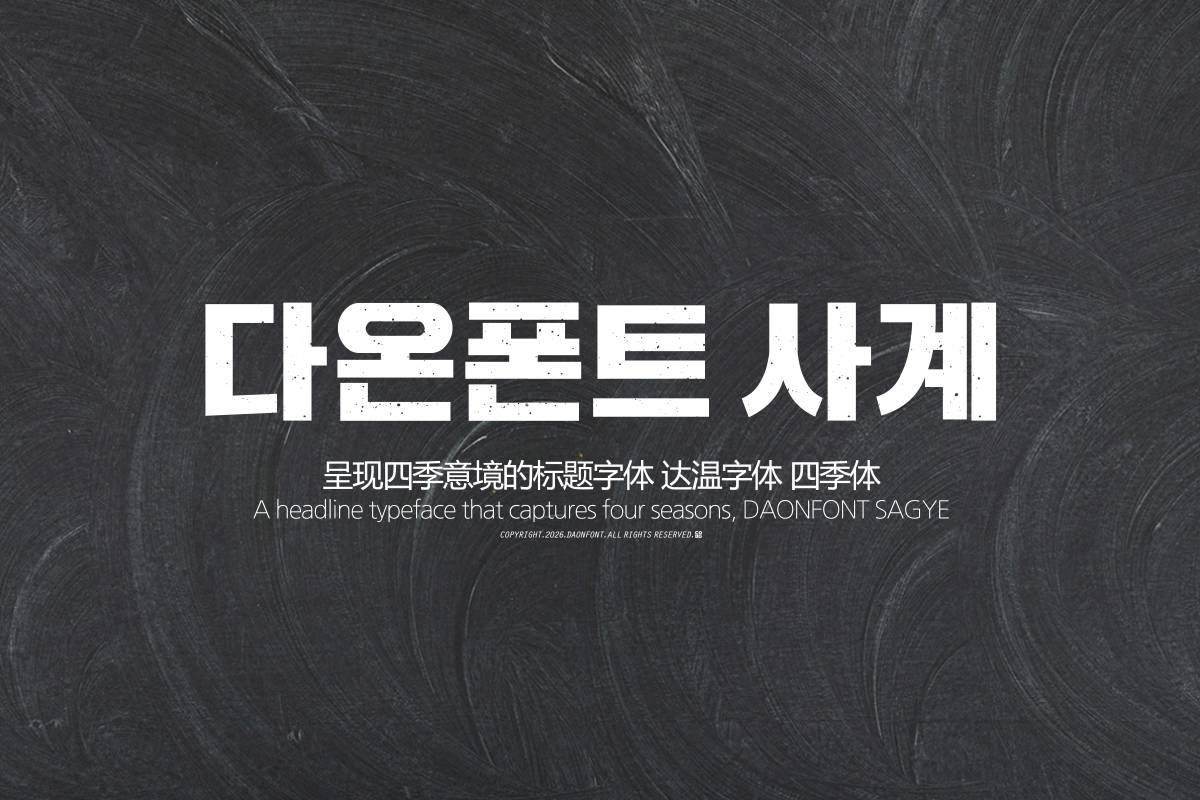
DAON SAGYE
DaonFont 'SAGYE' is the most fundamental type of the Sagyech series and is a Korean display typeface characterized by fine ink bleeding that spreads evenly throughout the characters. Based on a bold and solid character structure, yet infused with ink bleeding that naturally permeates every stroke, it conveys an analog sensibility and depth distinct from neat Gothic typefaces.